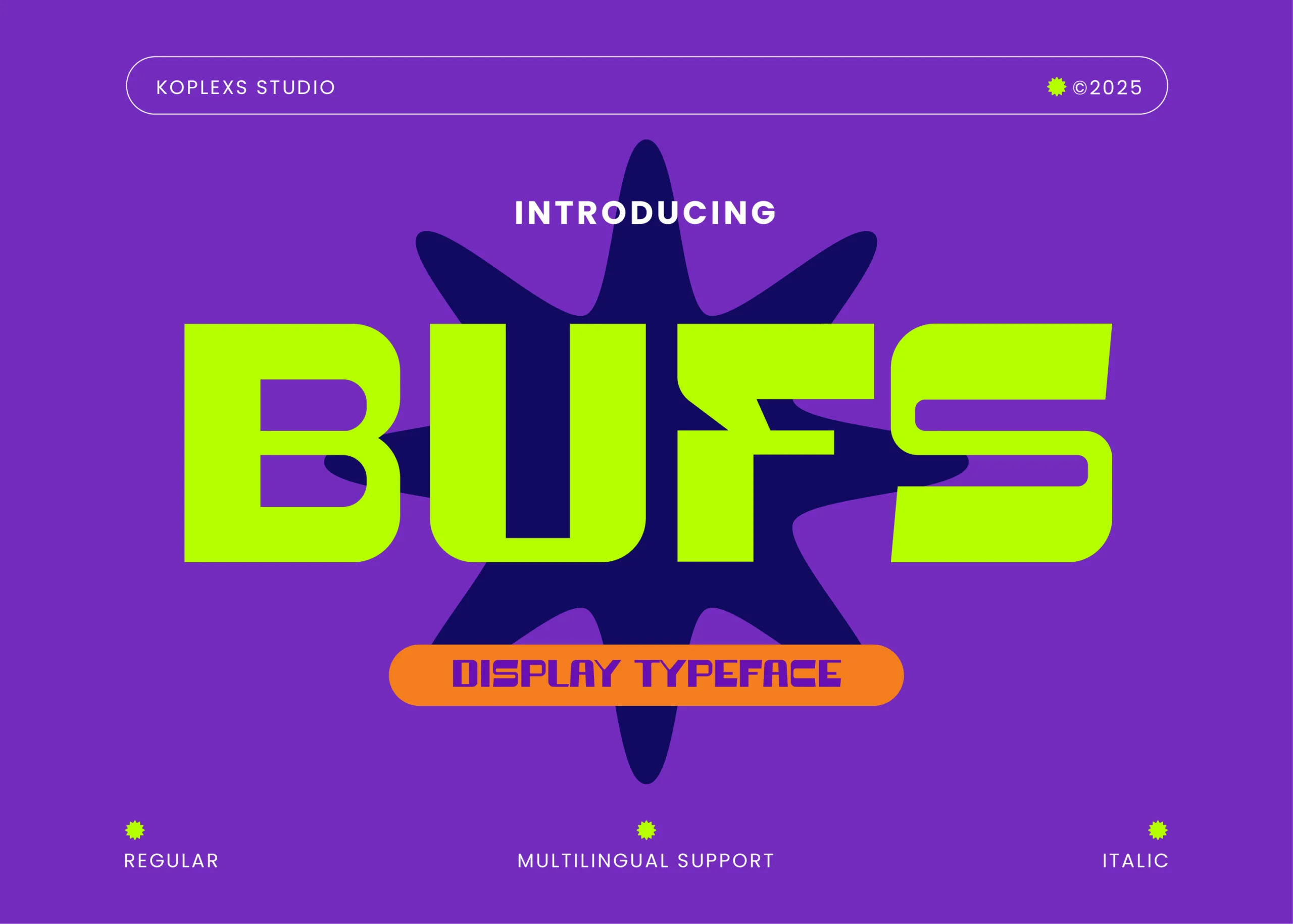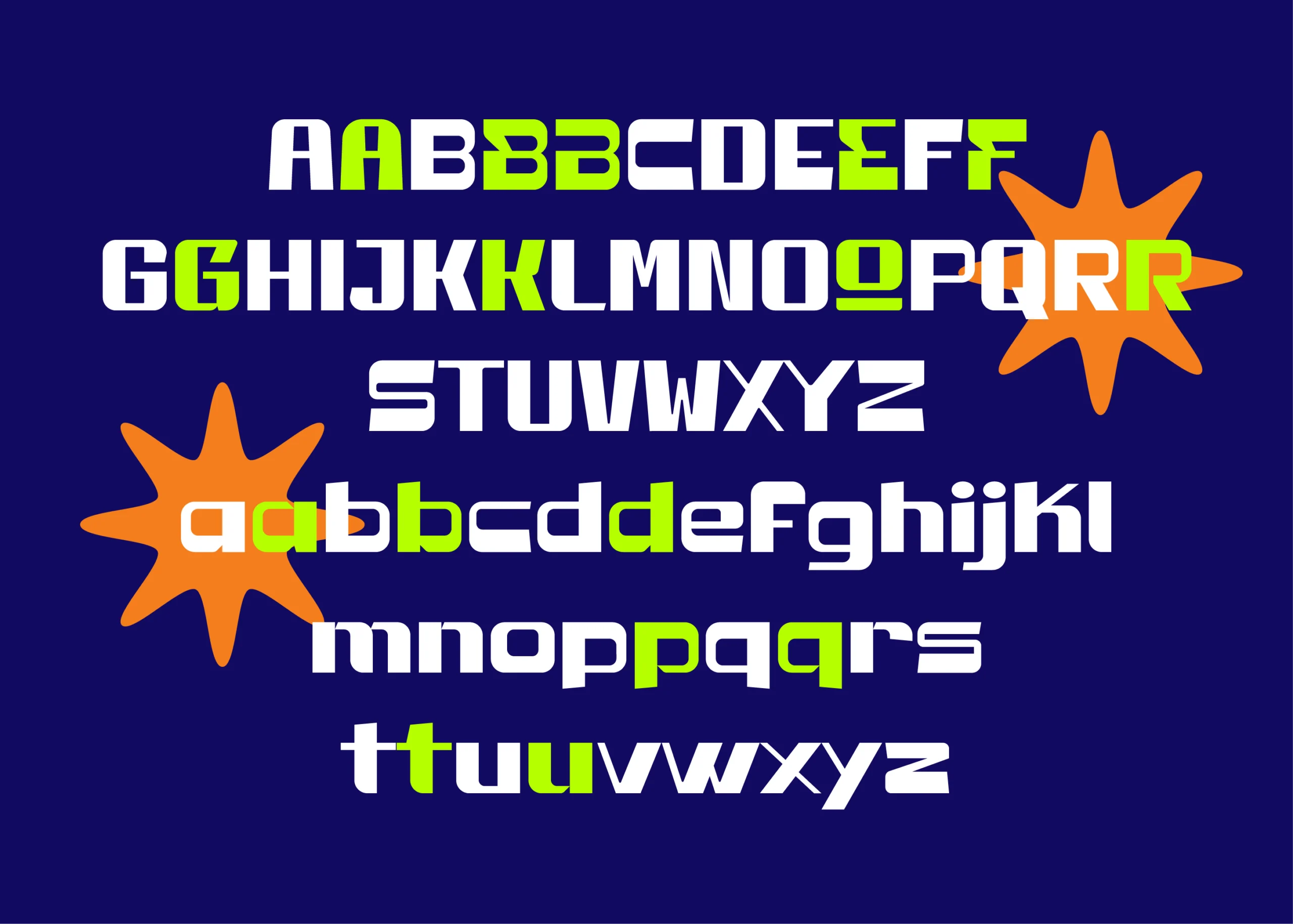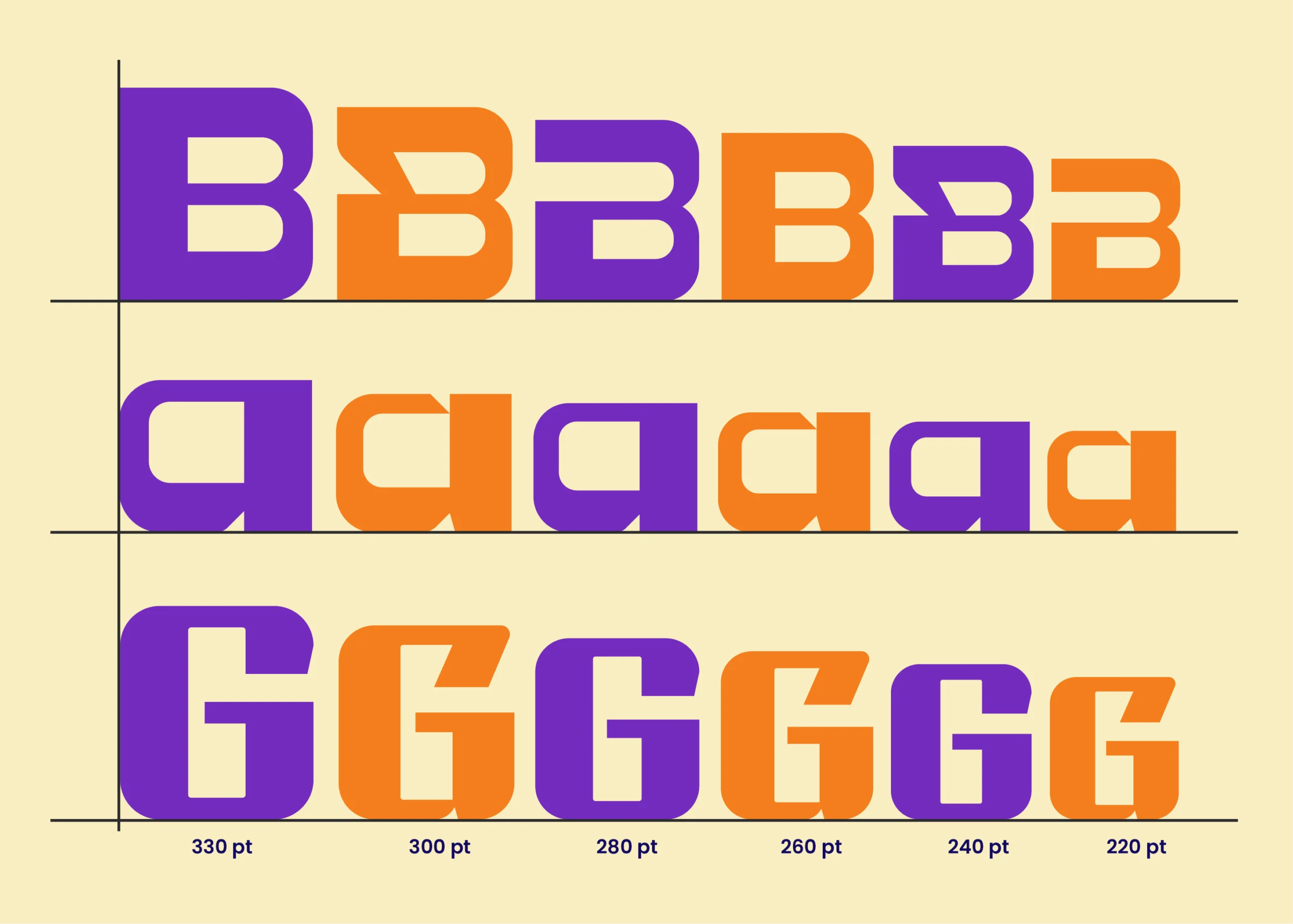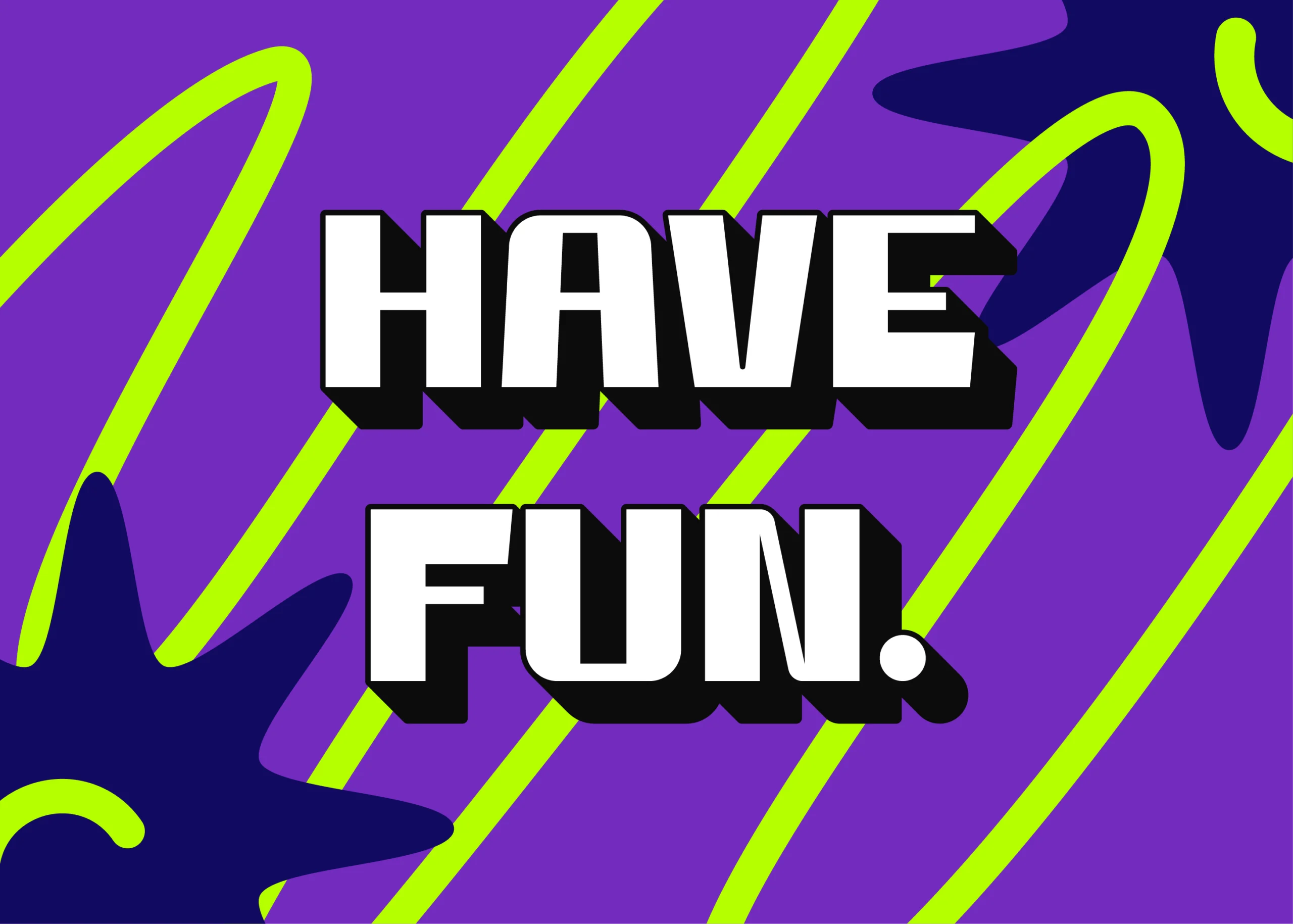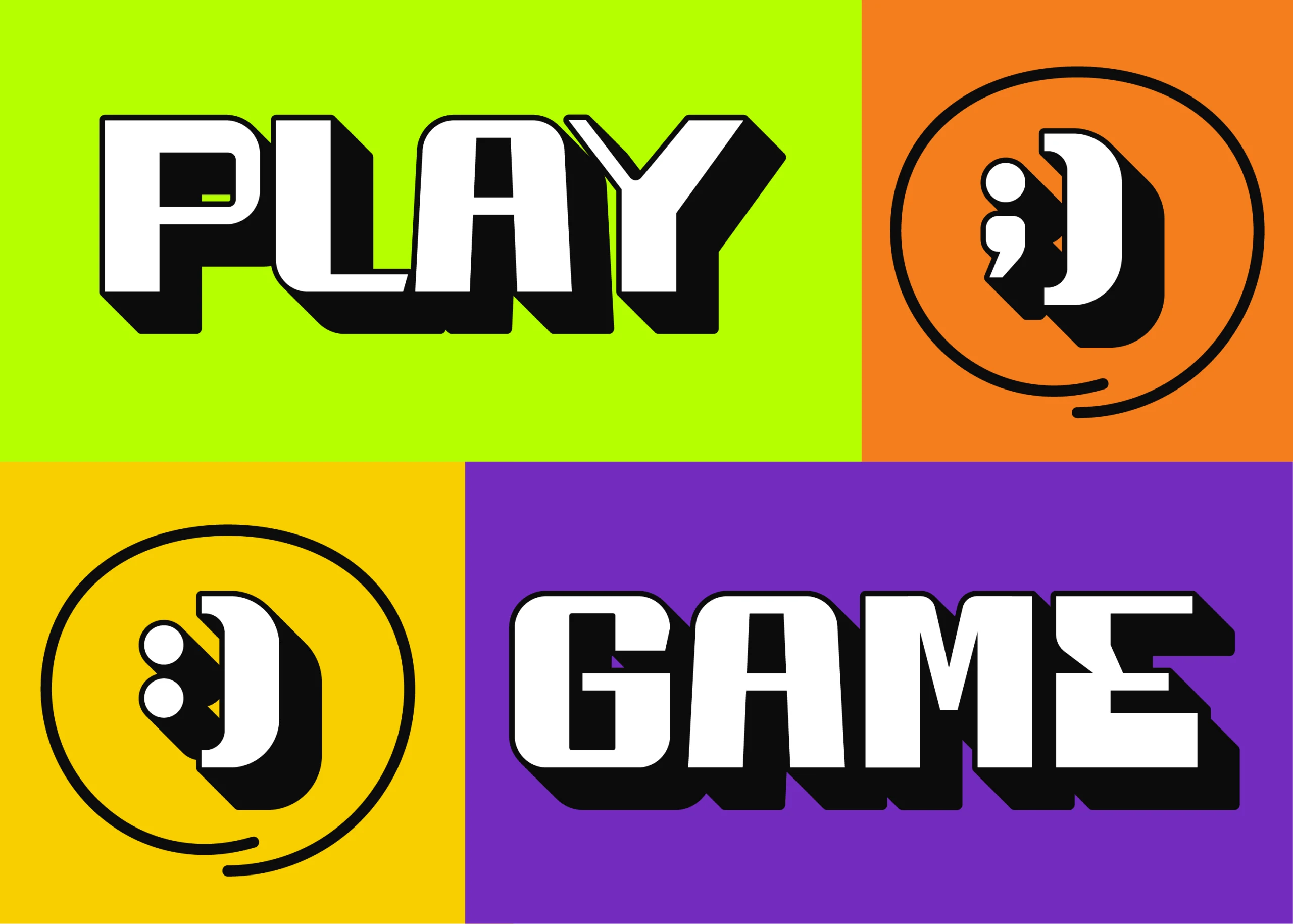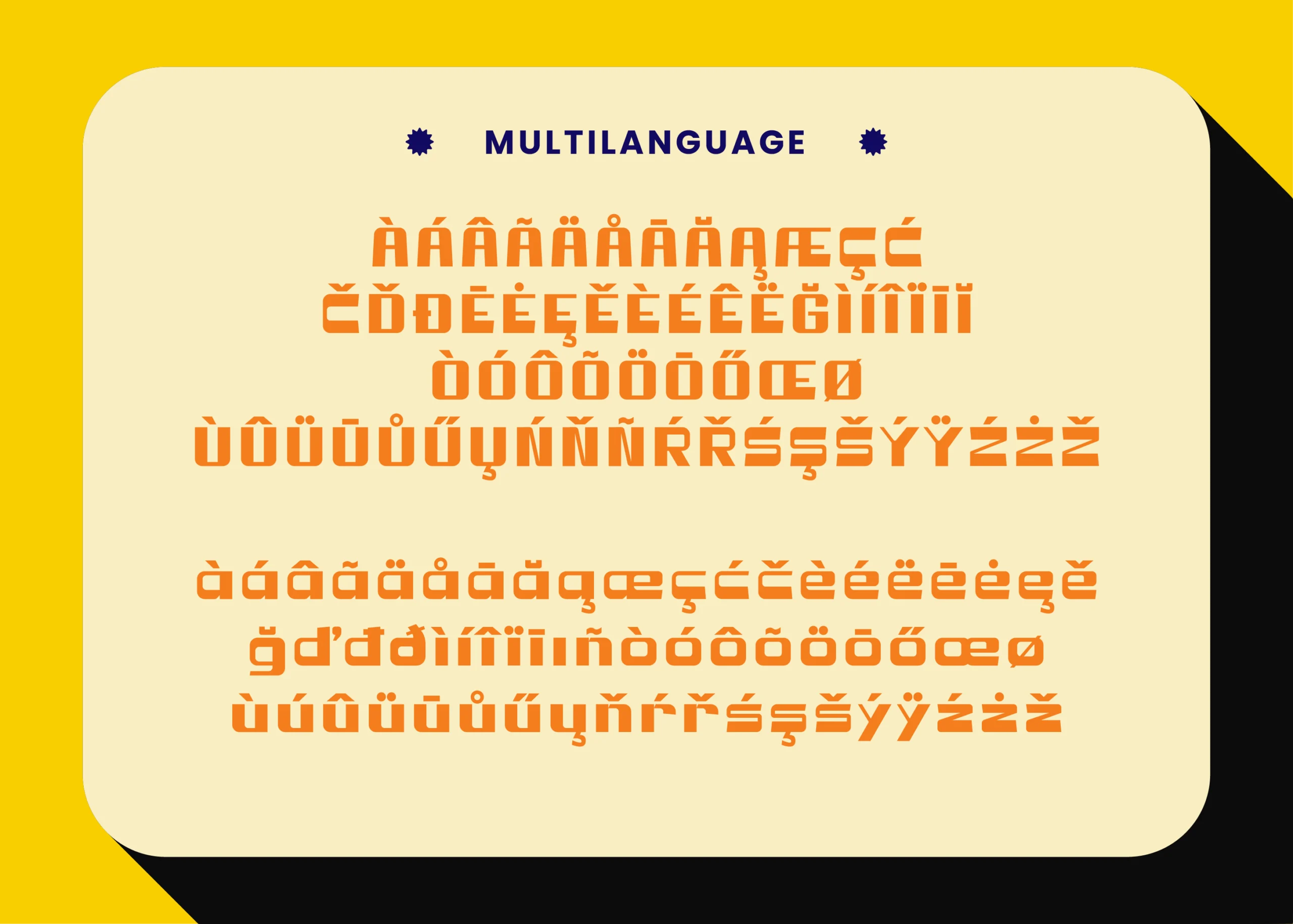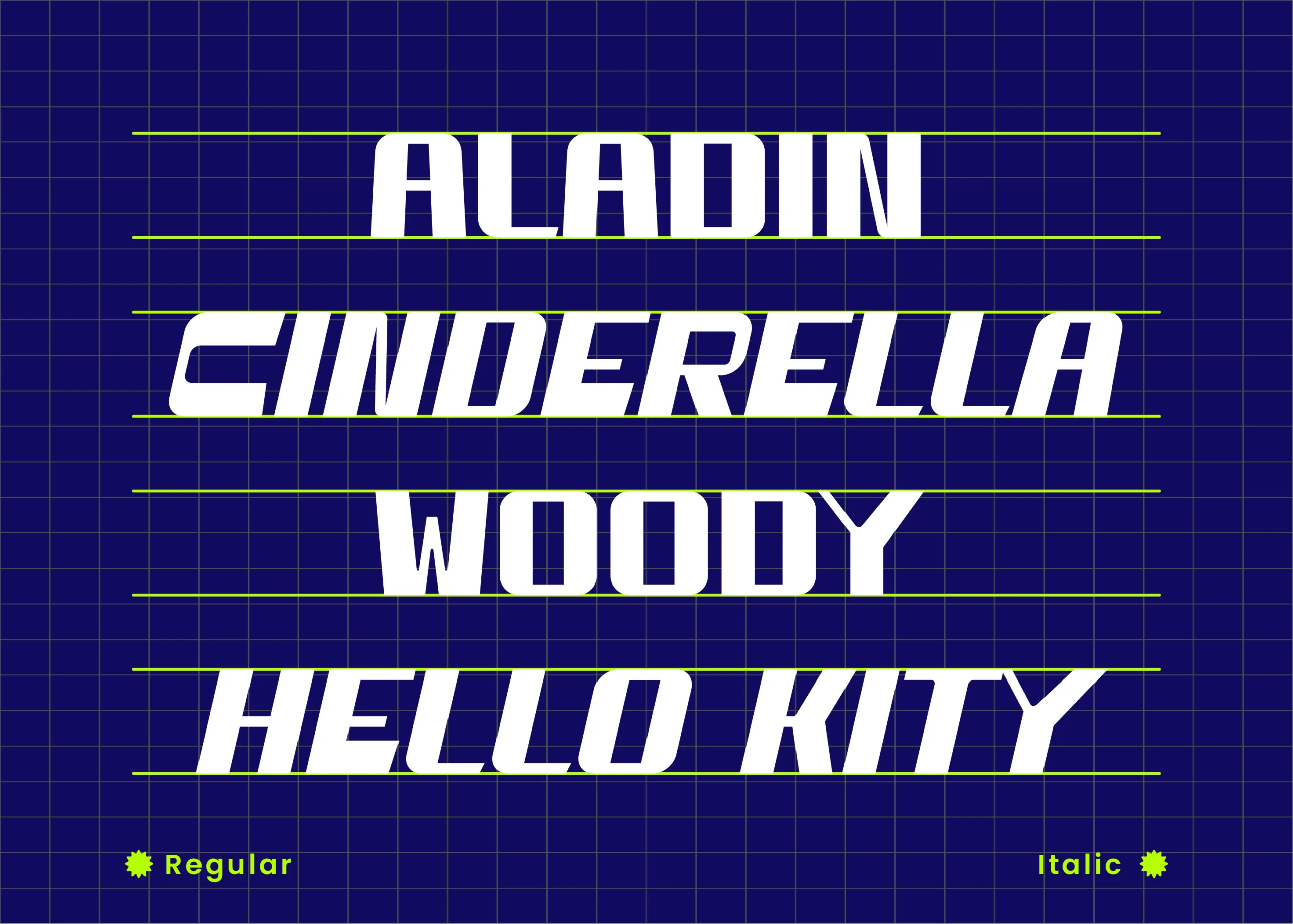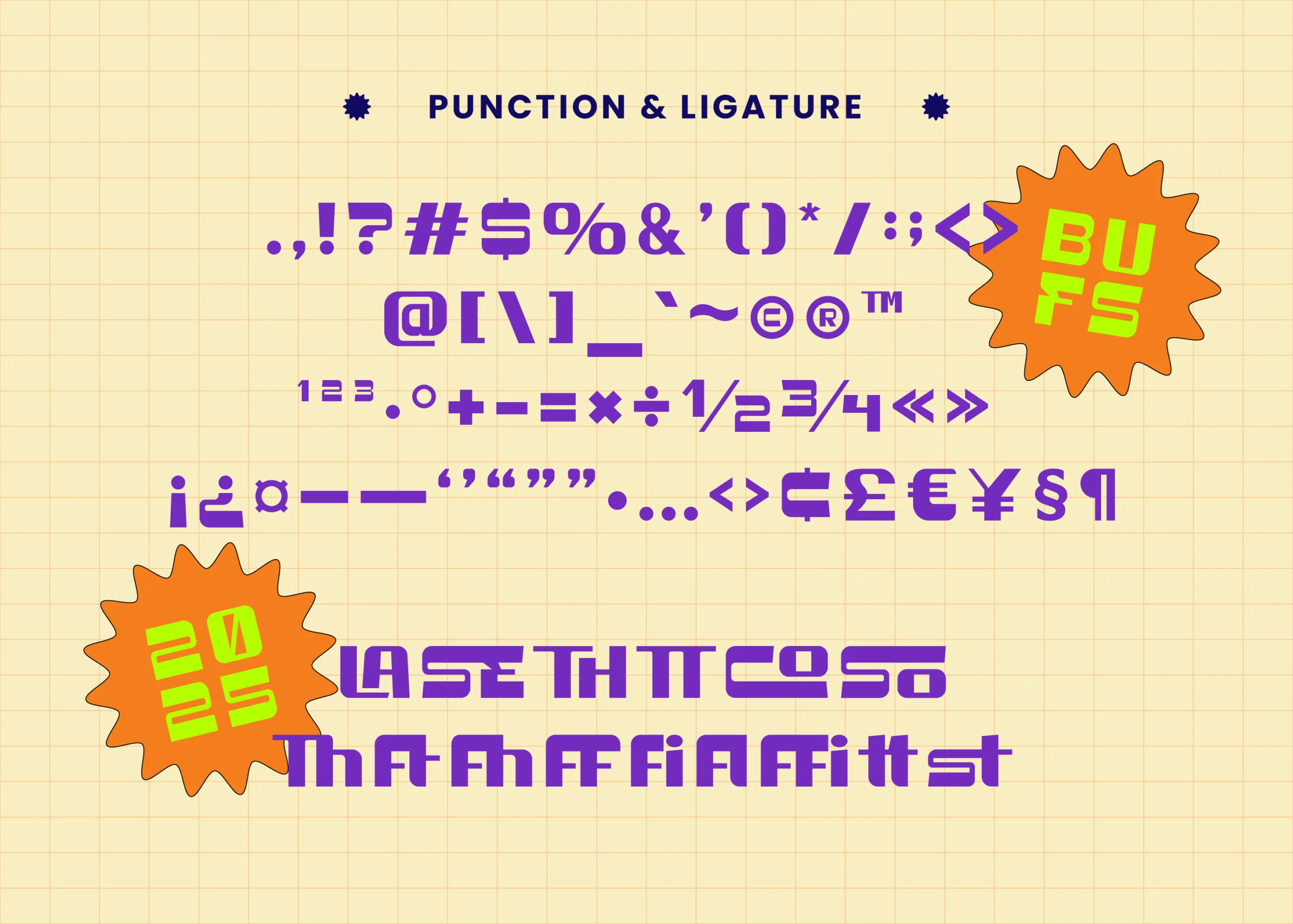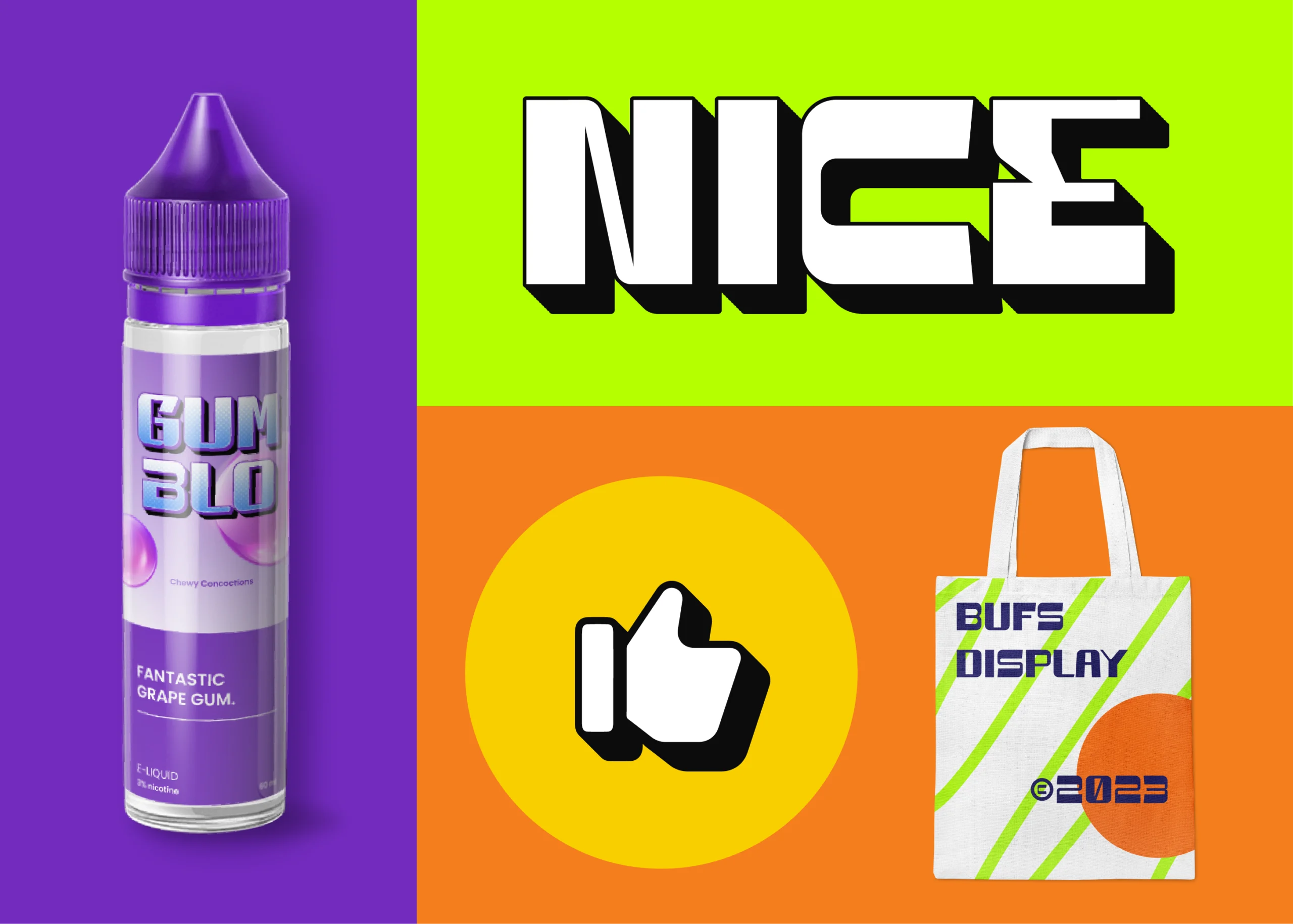
Bufs Font
Bufs Font is a bold sans serif display font with futuristic and playful character. Available in Regular and Italic, it comes with multilingual support, ligatures, and punctuation. Perfect as a game font, logo font, headline font, advertising font, branding font, and packaging font, Bufs Font is designed to make your project stand out with style. Ideal for gaming, digital design, social media, and creative branding.
Koplexs Studio
Bufs Font
Bufs Font is a futuristic and playful sans serif font designed to make your projects stand out. With bold geometric strokes and sharp angles, this display font brings a modern yet fun energy, making it ideal for both digital and print applications. Available in Regular and Italic styles, Bufs Font is crafted for maximum versatility and impact.
This cool font is packed with multilingual support, ligatures, and complete punctuation, making it a professional yet creative solution for various design needs. Whether you’re designing for gaming, entertainment, or bold branding, Bufs Font elevates your visuals with striking character.
✨ Features
• Styles: Regular & Italic
• Multilingual support (extended Latin characters)
• Complete set of uppercase & lowercase letters
• Punctuation, symbols, ligatures included
• Bold geometric shapes with futuristic vibes
🎯 Perfect Uses
• Game font: UI, titles, and in-game text
• Logo font: modern branding, wordmarks, and identity design
• Headline font: posters, magazines, or banners
• Advertising font: campaigns, promotions, and billboards
• Branding font: corporate identity, creative agencies, and product launches
• Packaging font: futuristic labels, food, beverage, or tech packaging
• Cool font for social media graphics and creative projects